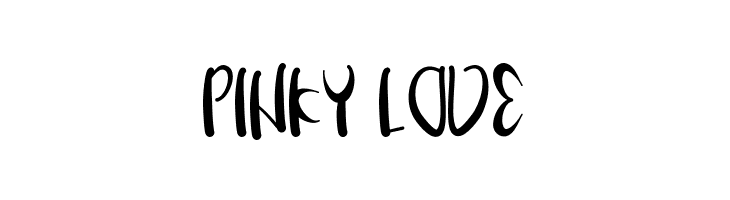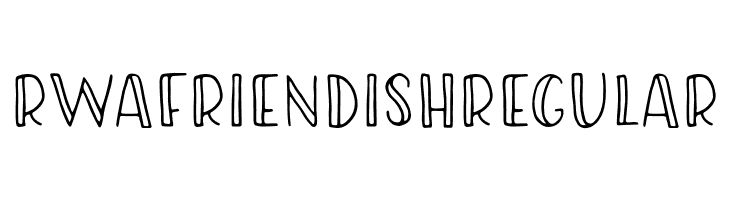
An elegant script font with flowing, interconnected letters and graceful curves.
An elegant script font with flowing, interconnected letters and refined flourishes.
An elegant, flowing script font with graceful curves and decorative flourishes.
A bold, textured font with an organic, splattered appearance.
A bold, decorative font with a unique cut-out pattern and rounded edges.
A bold, rugged font with a coarse texture and dynamic appearance.
A playful, handwritten font with irregular strokes and a casual style.
A modern, double-line font with a futuristic and geometric style.
A dramatic, hand-drawn font with sharp, elongated strokes and high contrast.
A delicate and flowing script font with elegant, cursive letterforms.